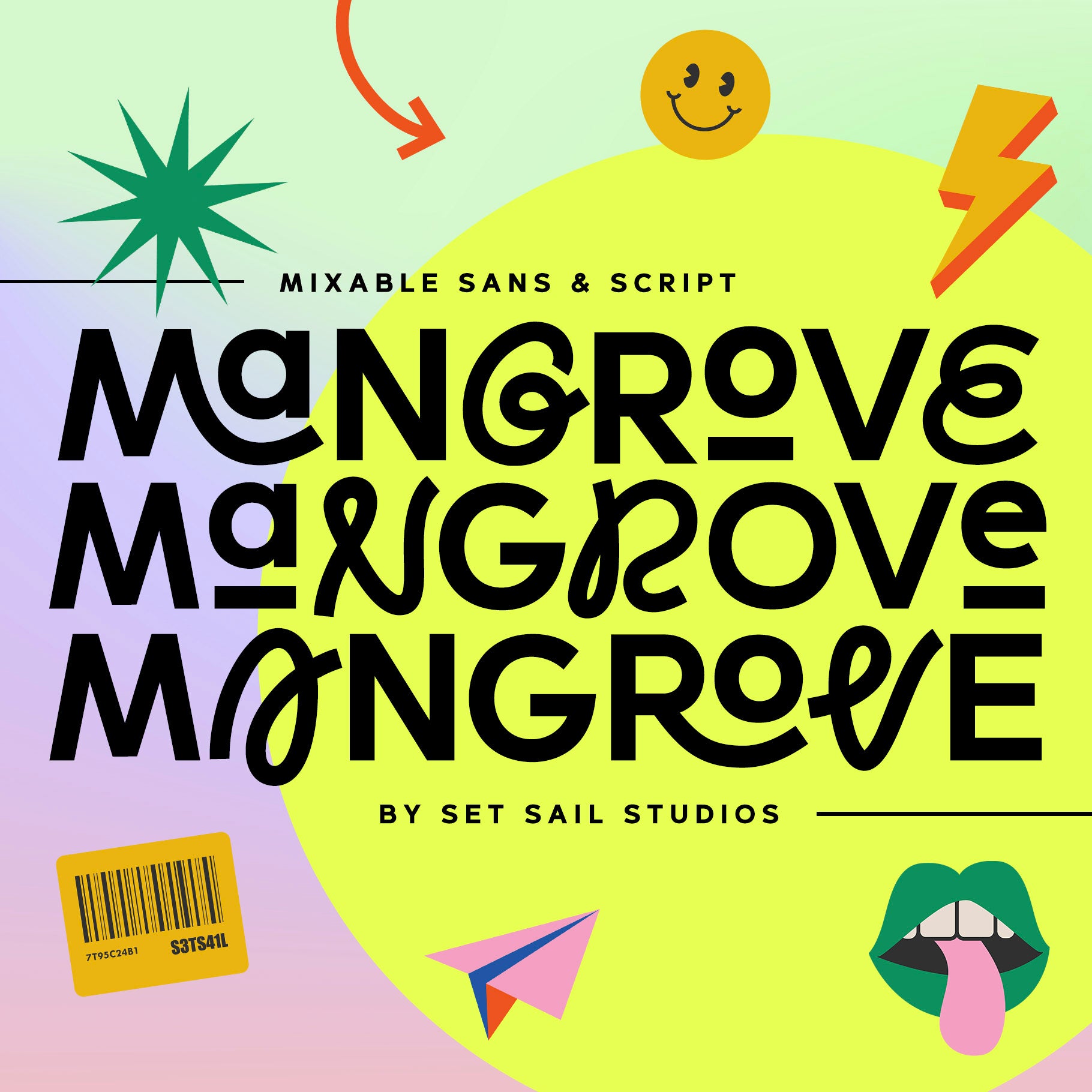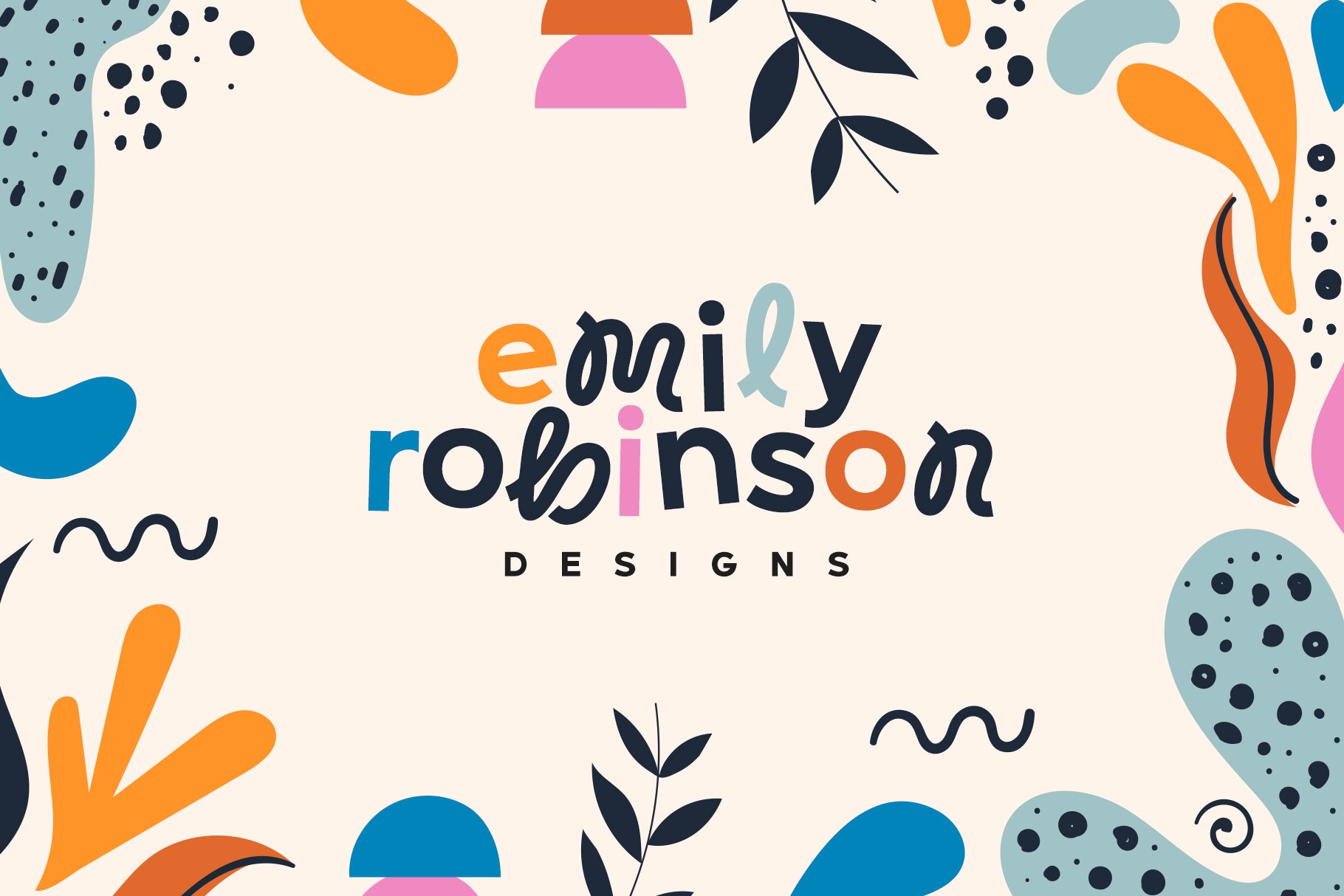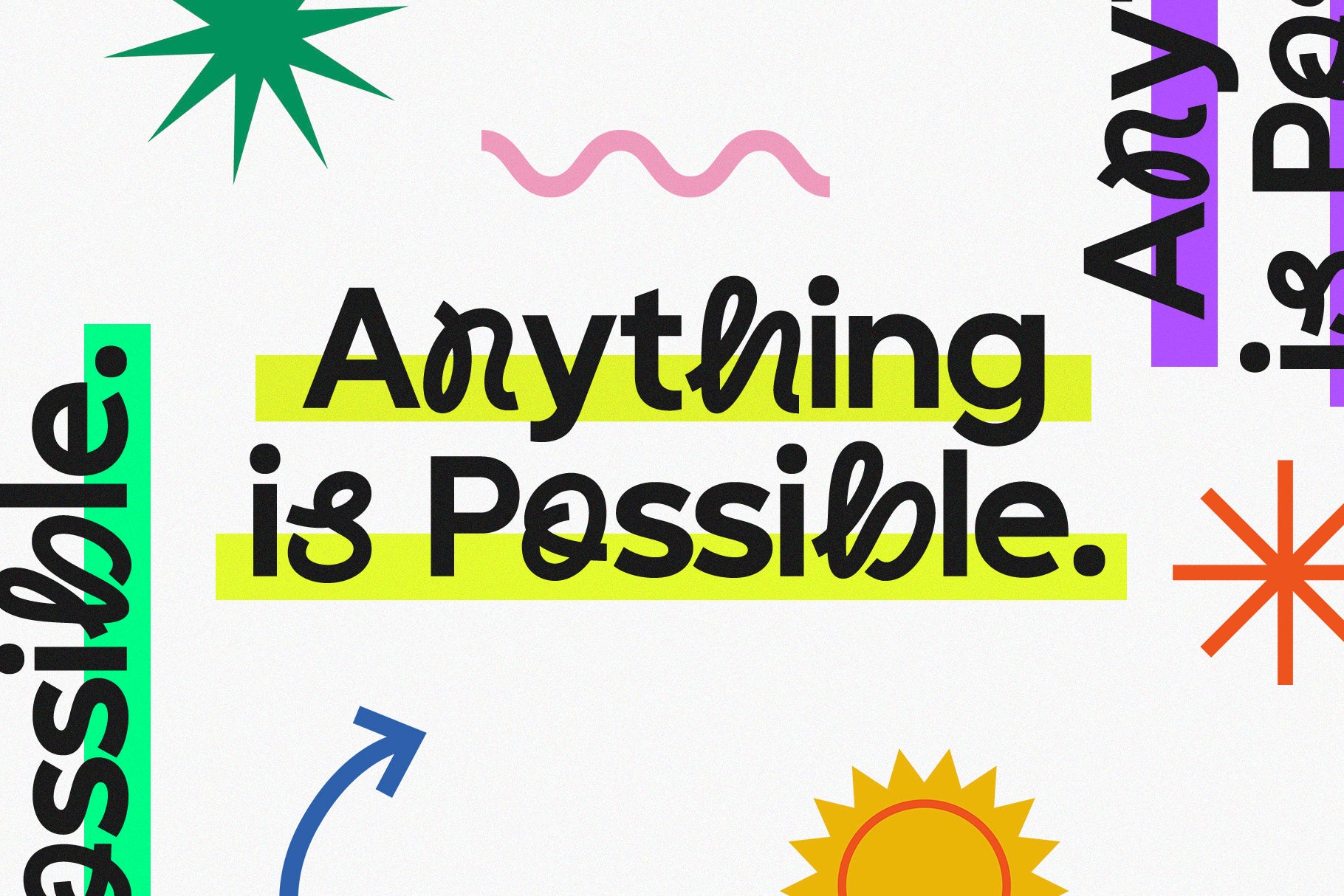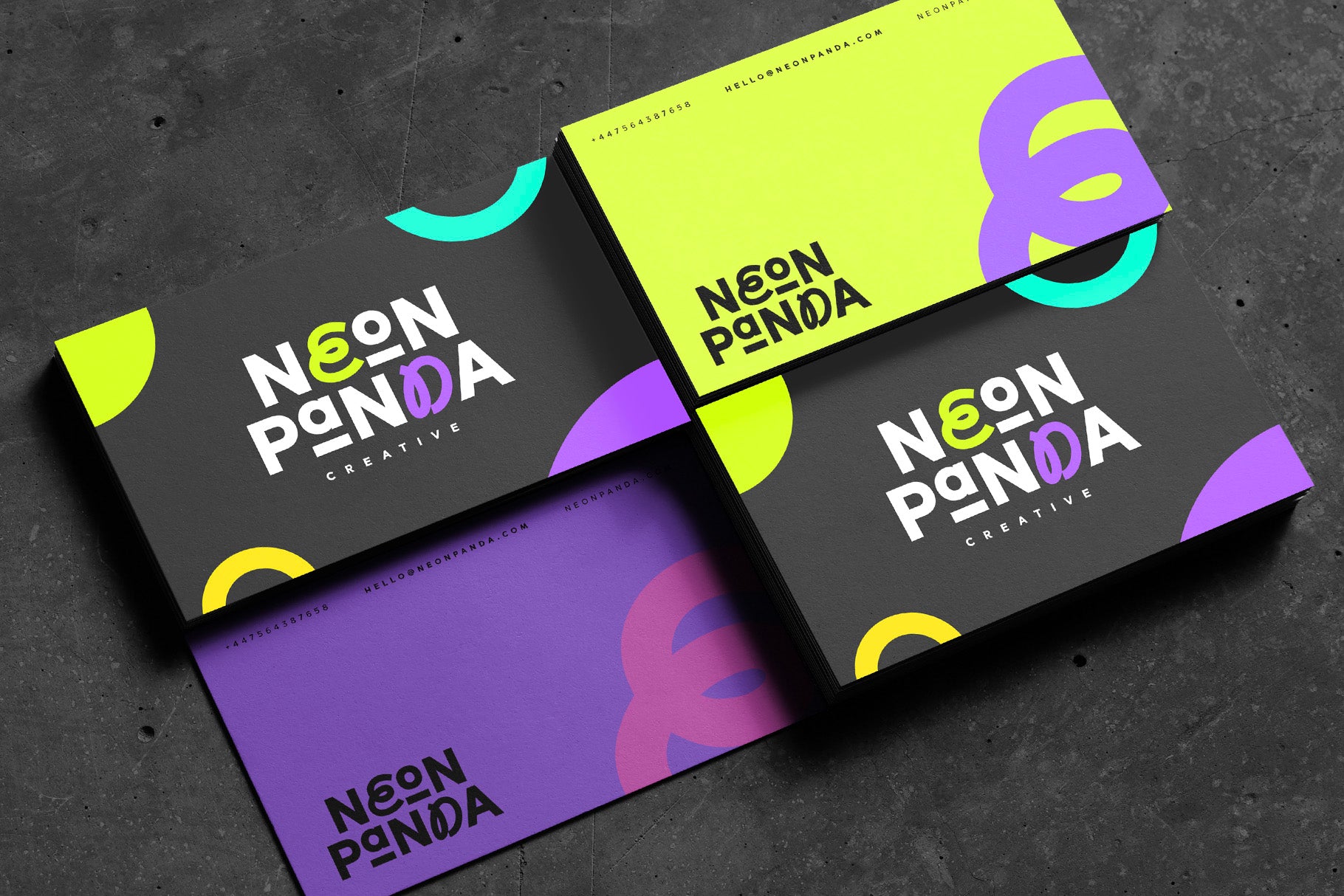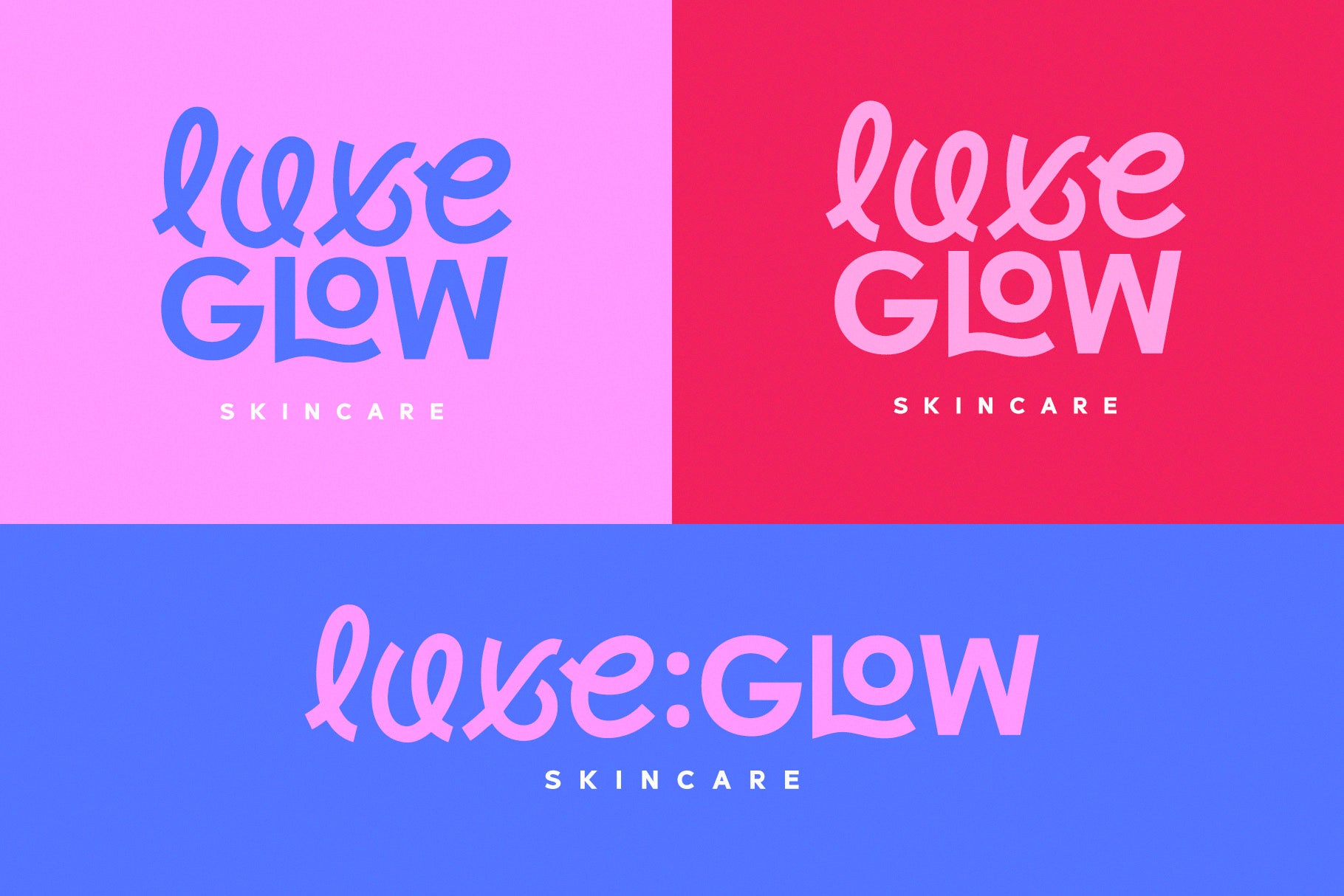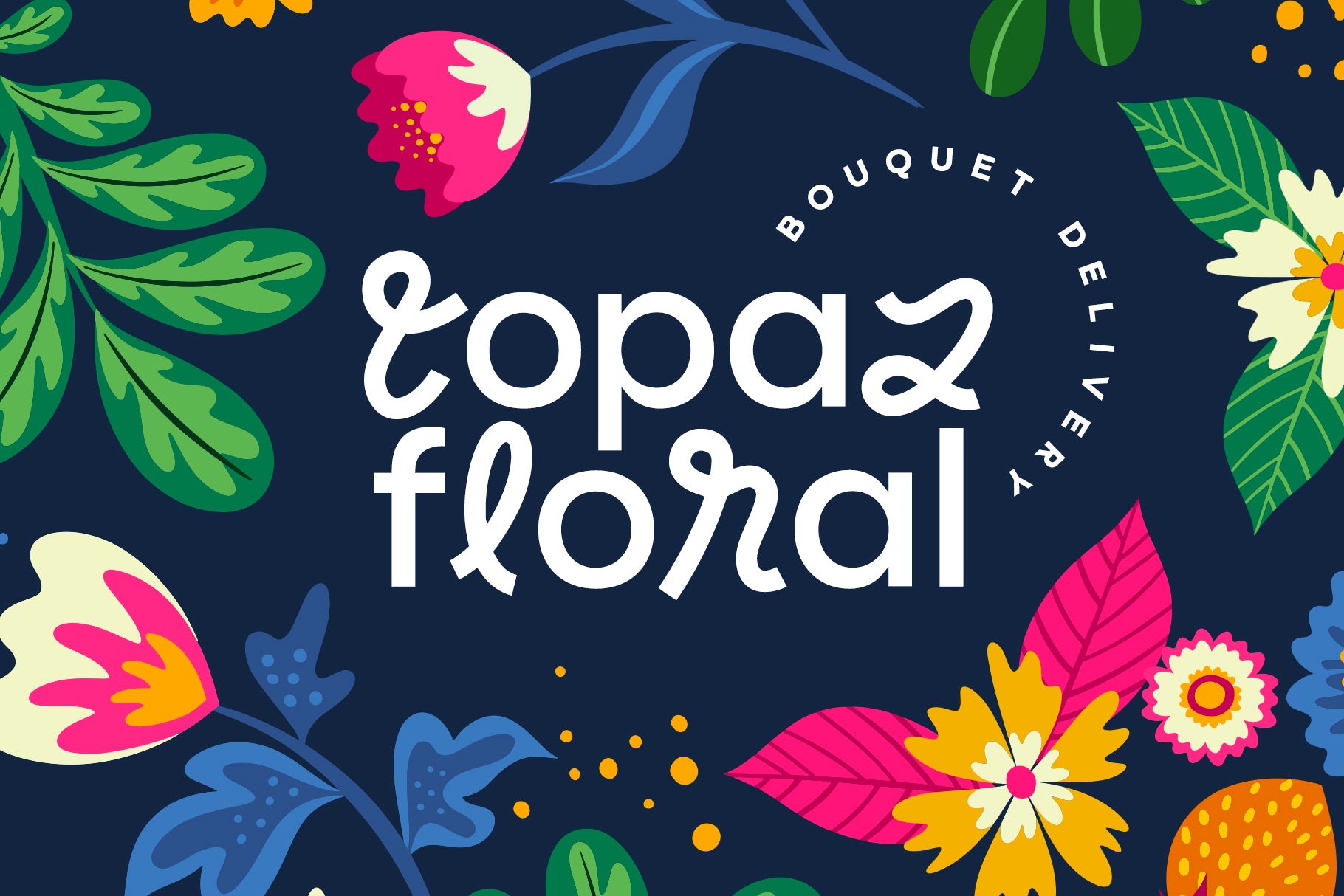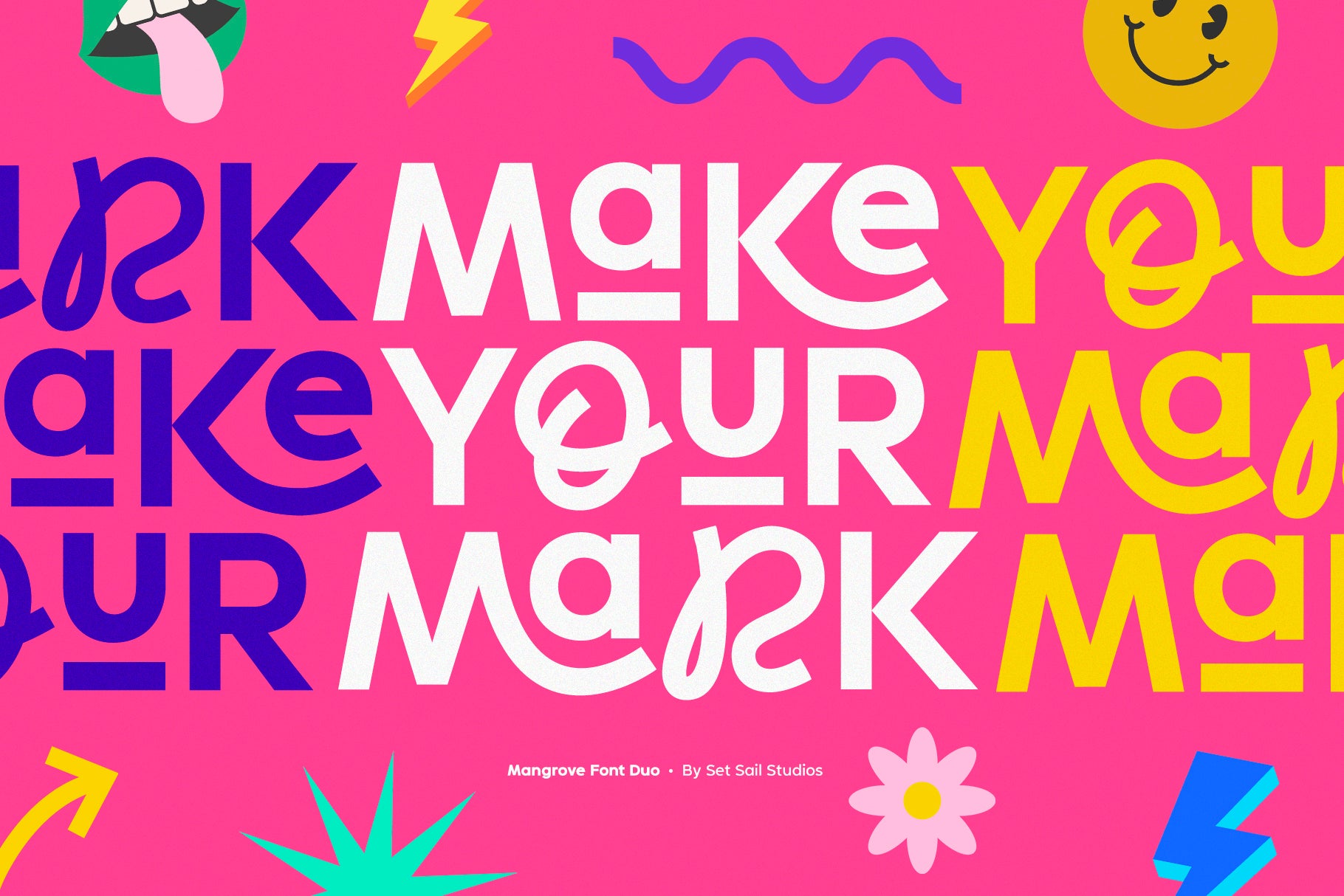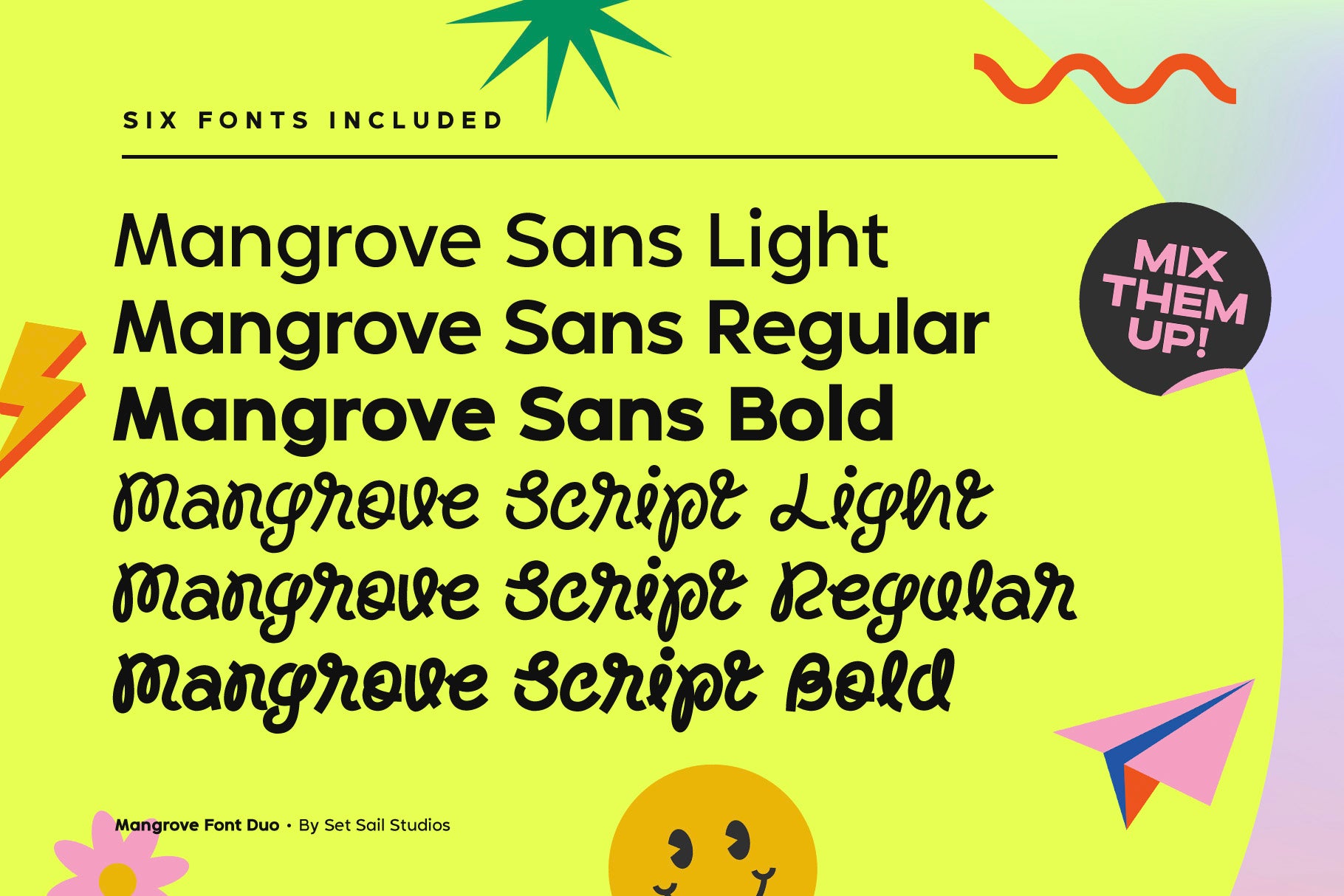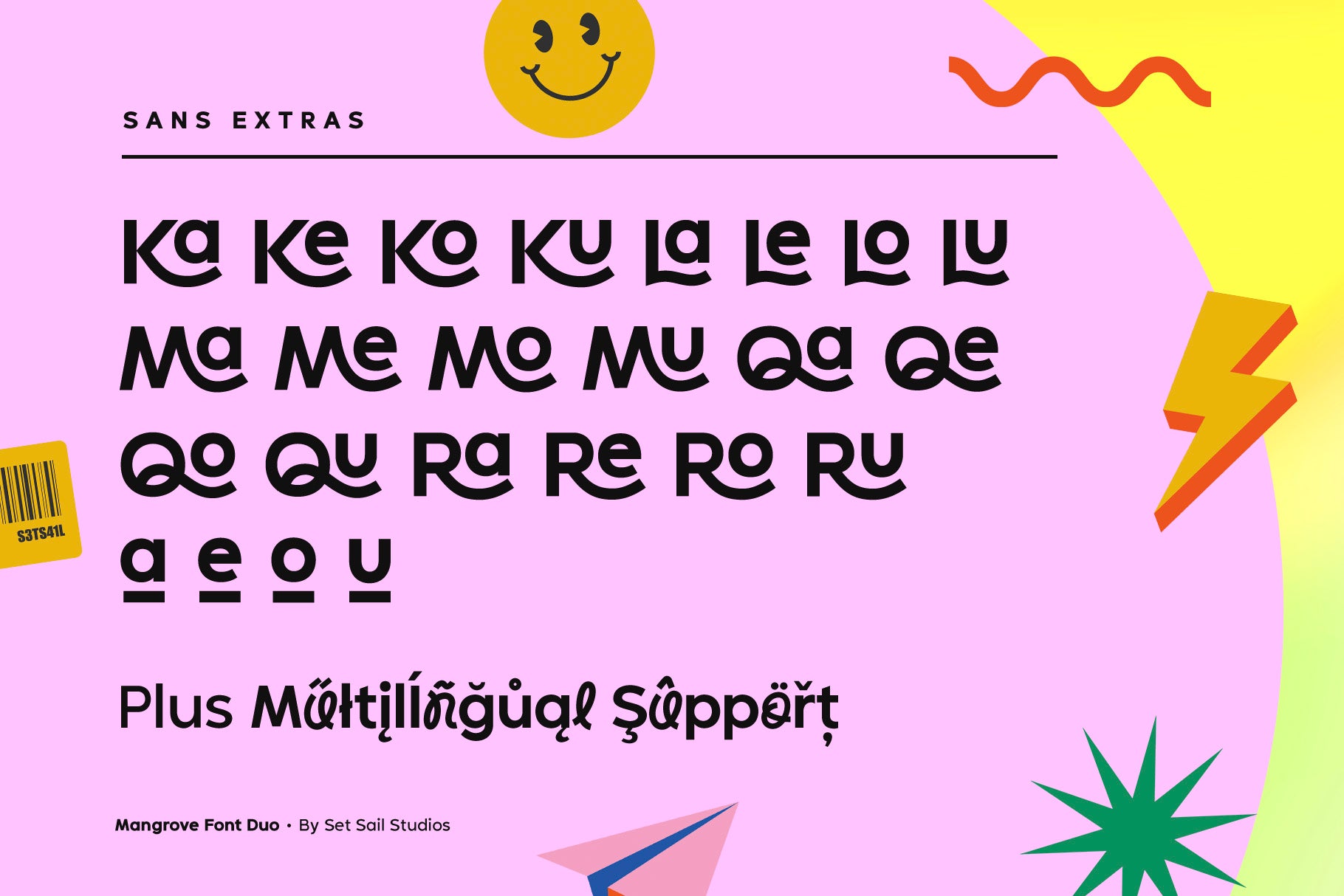
Mangrove Font Duo
The Mangrove Font Duo features a playful combination of Sans and Script typefaces, designed to work both independently and together. With three weights available for each font, users can access a total of six distinct fonts, supporting multiple languages including English, French, Spanish, and more.